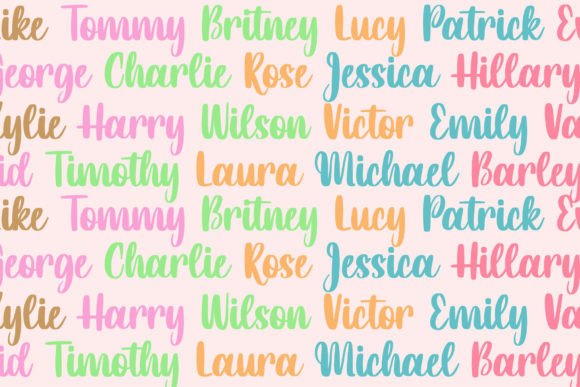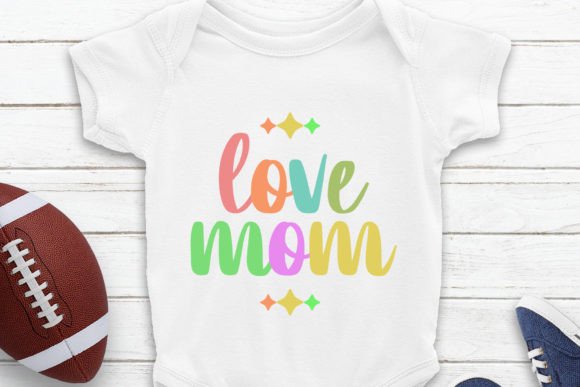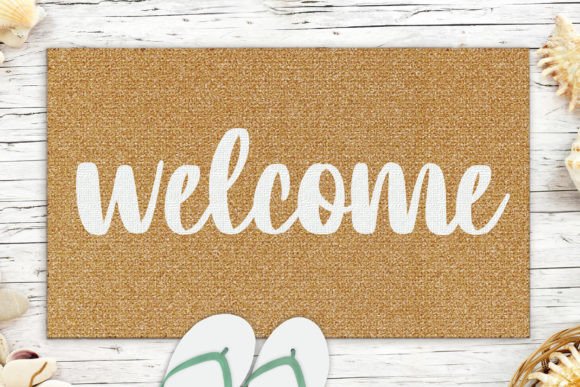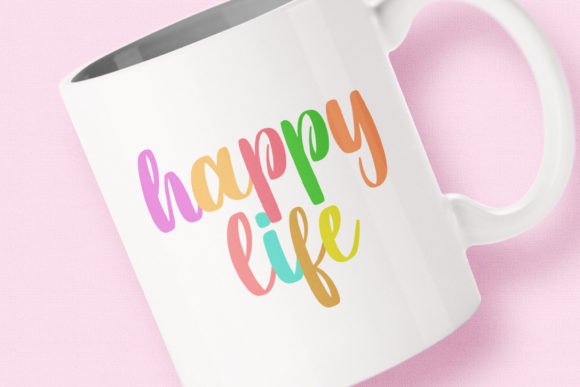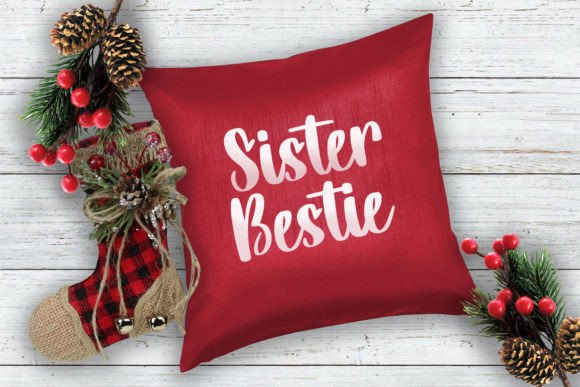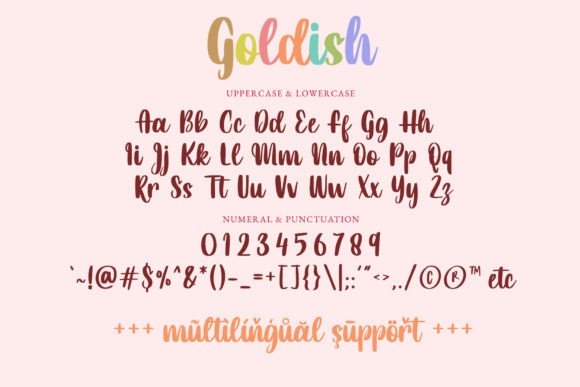
Introducing Goldish Font: The Ultimate Playful Script Font for Designers and Crafters
Are you tired of using the same old fonts for your designs and crafts? Look no further! Goldish font is here to add a touch of playfulness and fun to your projects. This cute script font is perfect for a variety of applications, from digital design and presentations to crafting and making greeting cards. In this article, we’ll dive into the features and benefits of Goldish font, and explore how it can become your go-to font for any occasion.
What is Goldish Font?
Goldish font is a unique and charming script font that is sure to capture the attention of your audience. Its playful and fun design makes it perfect for projects that require a personal touch. The font features flowing lines, curly tails, and a carefree spirit that is sure to bring a smile to anyone’s face. Whether you’re designing a digital project, creating a presentation, or making a handmade craft, Goldish font is the perfect choice.
Key Features of Goldish Font
- Playful and Fun Design: Goldish font features a playful and fun design that is sure to add a touch of personality to your projects.
- Cute and Charming: The font’s cute and charming design makes it perfect for projects that require a personal touch.
- Script Font: Goldish font is a script font that features flowing lines and curly tails, giving it a carefree and playful spirit.
- Versatile: Goldish font can be used for a variety of applications, from digital design and presentations to crafting and making greeting cards.
Benefits of Using Goldish Font
So, why should you choose Goldish font for your projects? Here are just a few benefits of using this amazing font:
- Adds a Personal Touch: Goldish font adds a personal touch to your projects, making them stand out from the crowd.
- Perfect for Kids’ Projects: The font’s playful and fun design makes it perfect for kids’ projects, such as party invitations, crafts, and educational materials.
- Great for Social Media: Goldish font is perfect for social media graphics, such as Instagram posts, Facebook graphics, and Twitter headers.
- Easy to Read: Despite its playful design, Goldish font is easy to read, making it perfect for body text and headings.
How to Use Goldish Font
Using Goldish font is easy! Here are a few tips to get you started:
- Pair it with Other Fonts: Pair Goldish font with other fonts to create a unique and interesting design.
- Use it for Headings and Titles: Use Goldish font for headings and titles to add a touch of personality to your projects.
- Add it to Your Digital Designs: Add Goldish font to your digital designs, such as presentations, social media graphics, and blog posts.
- Use it for Crafts and DIY Projects: Use Goldish font for crafts and DIY projects, such as making greeting cards, scrapbooking, and other paper crafts.
In conclusion, Goldish font is a cute, playful, and fun script font that is perfect for designers and crafters. Its unique and charming design makes it perfect for a variety of applications, from digital design and presentations to crafting and making greeting cards. With its playful and fun design, versatility, and ease of use, Goldish font has the potential to become your favorite go-to font, no matter the occasion!